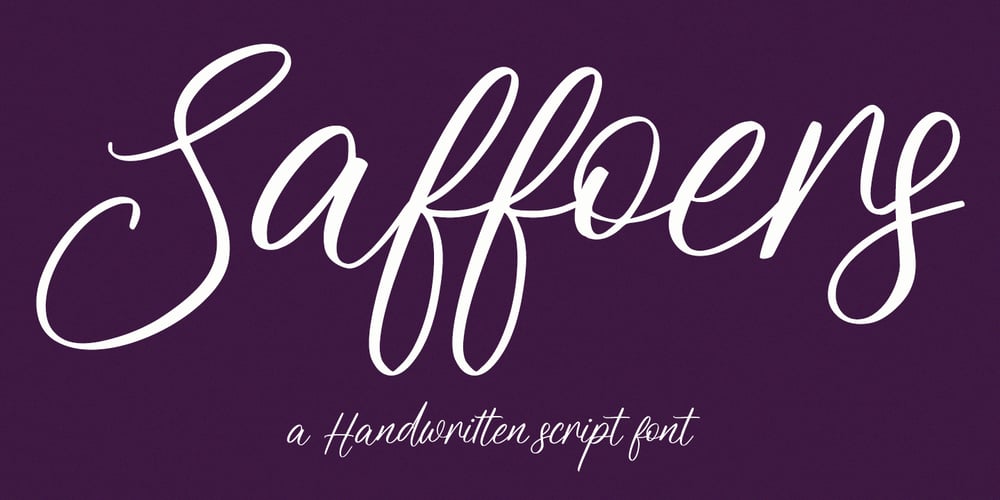
MC Saffoers Font Family was designed by Gilang Maulana and published by Maulana Creative. MC Saffoers contains 1 styles and family package options. Saffoers is a fancy handwritten script font. With light contrast stroke, fun character with a bit of ligatures. To give you an extra creative work. Saffoers font support multilingual more than 100+ language. This font is good for logo design, Social media, Movie Titles, Books Titles, a short text even a long text letter and good for your secondary text font with sans or serif. Make a stunning work with Saffoers font. Cheers, Maulana Creative